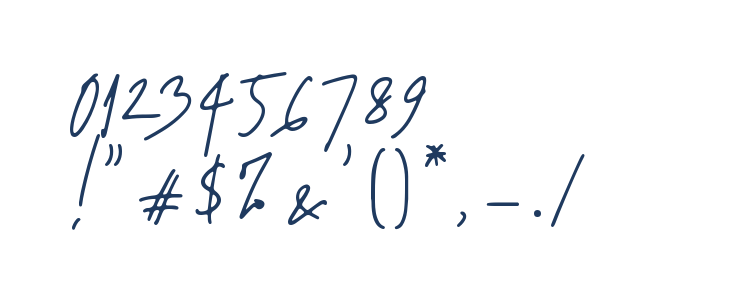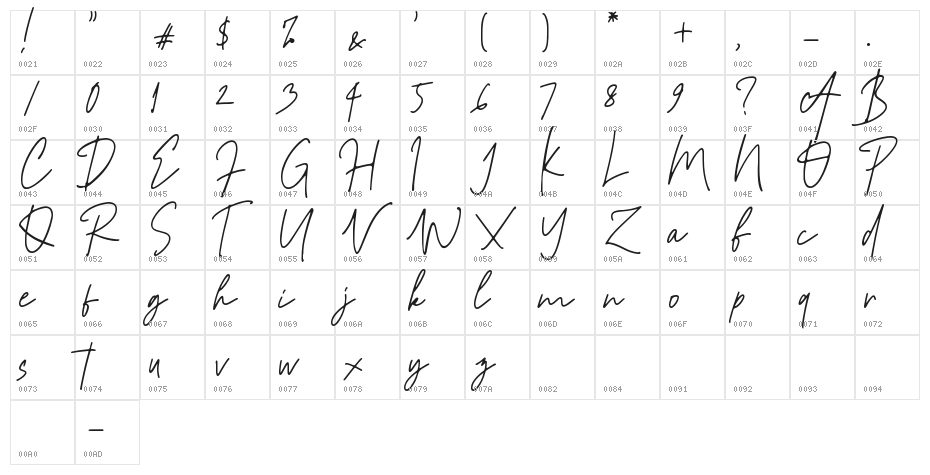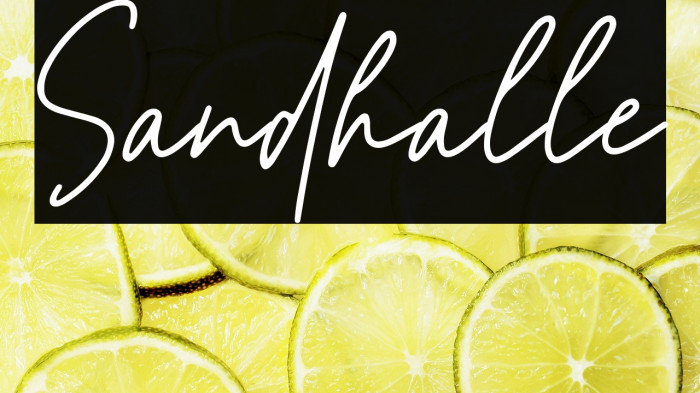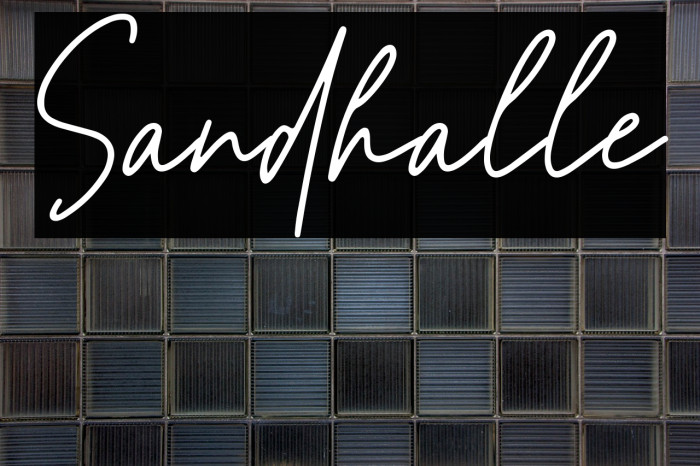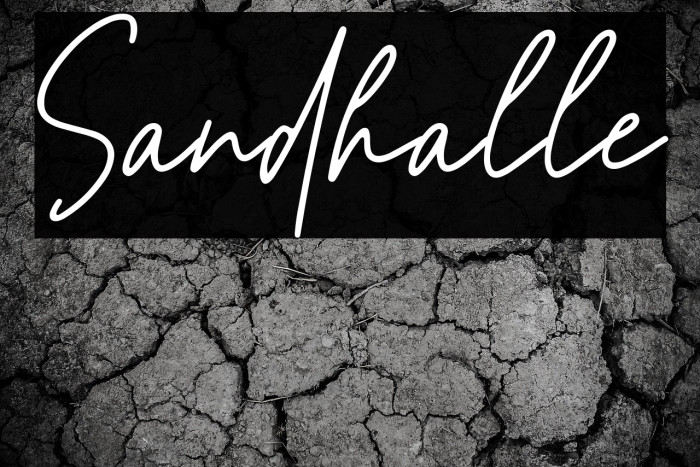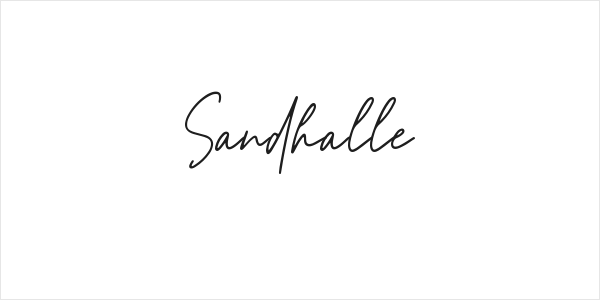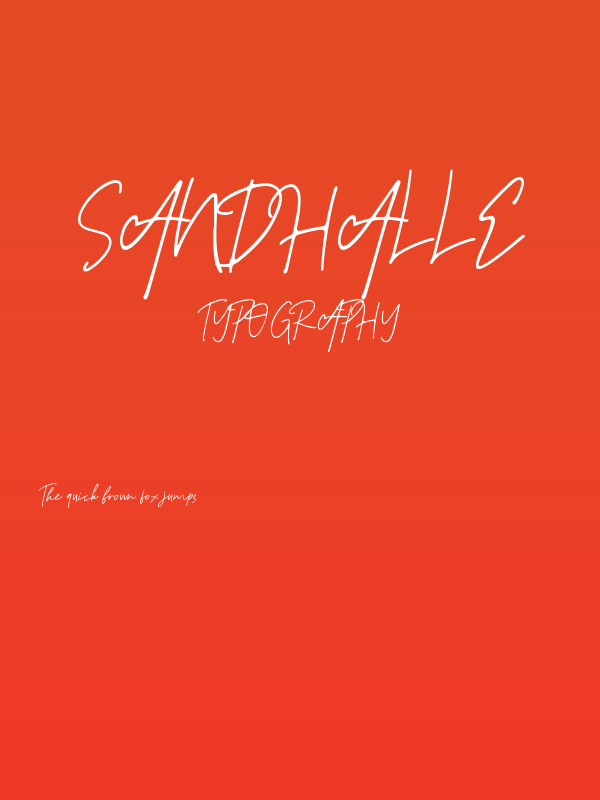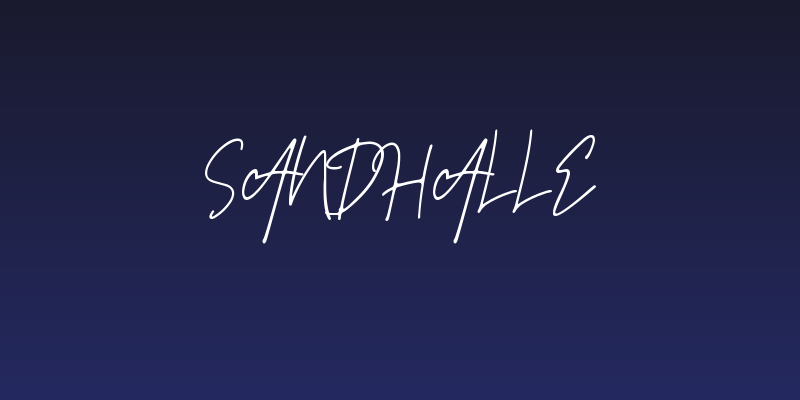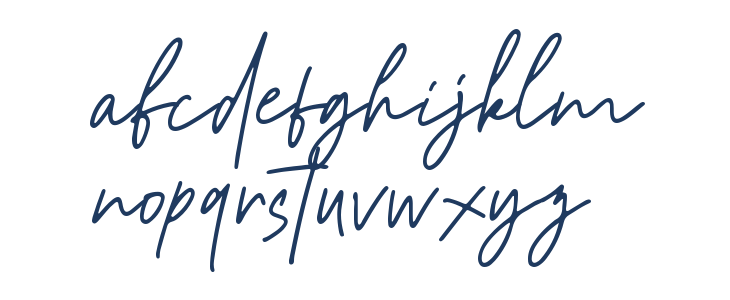
Sandhalle Font
Sandhalle Description
This font exudes a lively and dynamic handwritten style, characterized by its fluid and spontaneous strokes. The letters are crafted with a natural flow, mimicking the look of casual handwriting. The uppercase letters are bold and expressive, while the lowercase letters maintain a consistent rhythm, adding to the overall legibility. Numbers and special characters follow the same energetic style, making them seamlessly integrate with the alphabet. The font's playful yet sophisticated appearance makes it suitable for a variety of creative projects.